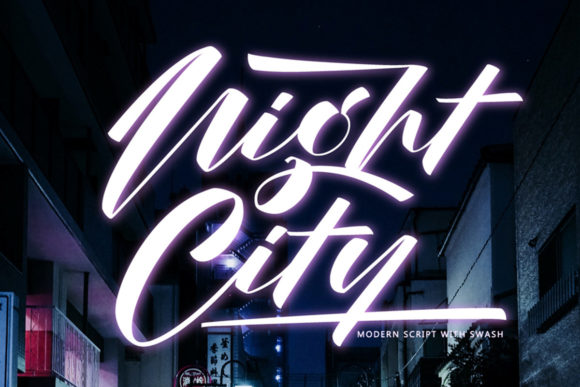
Introducing Night City Font, a captivating and bold handwritten font designed by Gilar Studio. This remarkable font is more than just a tool for your creativity – it's a powerful way to captivate your audience, infusing your messages with confidence, authenticity, and charm.
Crafted with meticulous attention to detail, Night City Font is the perfect choice for various projects, from greeting cards to branding and labels. Its versatility knows no bounds, making it an essential asset for any designer or creative individual seeking to make a lasting impression.
What sets Night City Font apart is its stunning collection of glyphs and ligatures, easily accessible through its PUA encoding. With just a few clicks, you can unlock a world of amazing characters that will take your designs to new heights. These additional elements allow you to add a touch of elegance, uniqueness, and sophistication to your creations.
Imagine the impact of using Night City Font on your wall quotes. Each stroke of this font dances across the canvas, creating an eye-catching display that effortlessly captures attention and evokes emotion. Your words will come to life, leaving a lasting impression on anyone who lays eyes on them.
Whether you're a professional designer or a passionate hobbyist, Night City Font empowers you to unleash your creativity and bring your ideas to life. Its bold and beautiful design ensures that your messages are heard loud and clear, leaving no room for indifference.
Don't settle for ordinary fonts when you can have Night City Font, the epitome of elegance and style. Stand out from the crowd, make a statement, and leave an everlasting impact with this remarkable font.